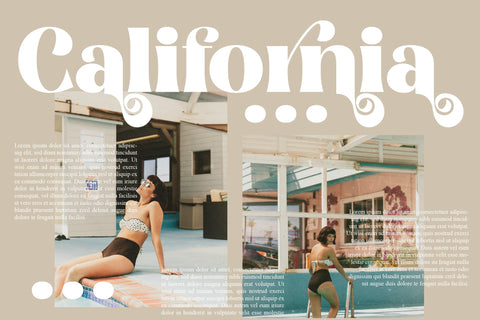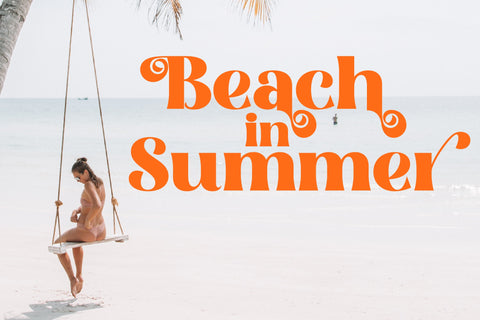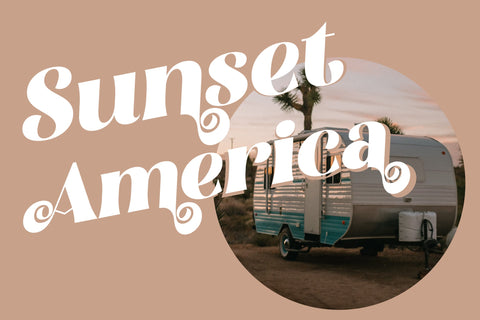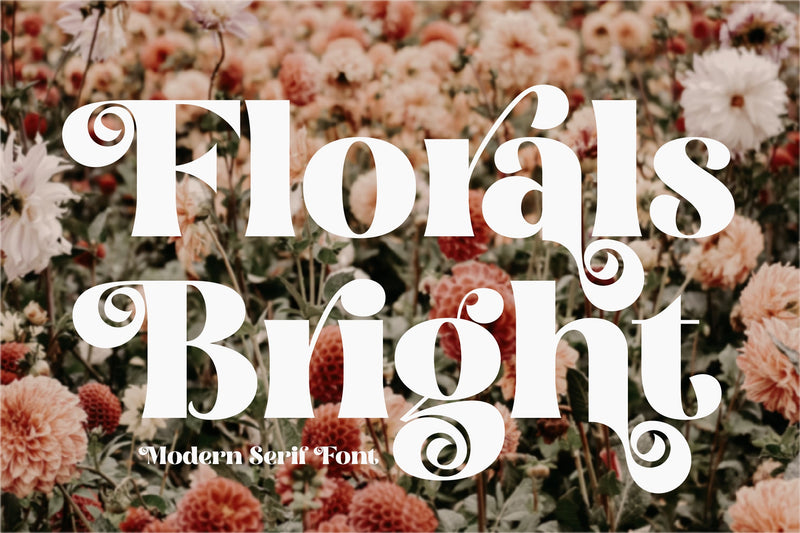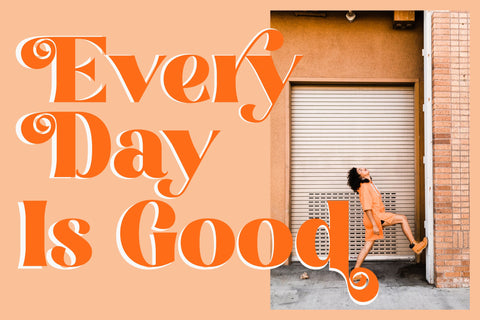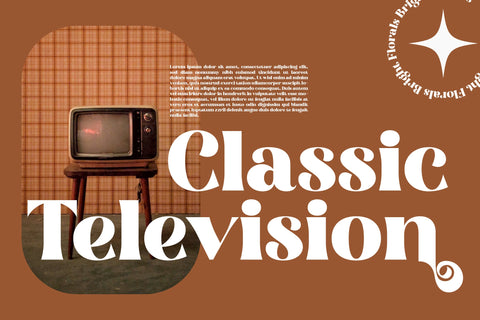
Florals Bright Typeface
Proudly present Florals Bright Typeface, created by Storytype,
This typeface is perfect for an elegant & luxury logo, book or movie title design, fashion brand,
magazine, clothes, lettering, quotes, and so much more.